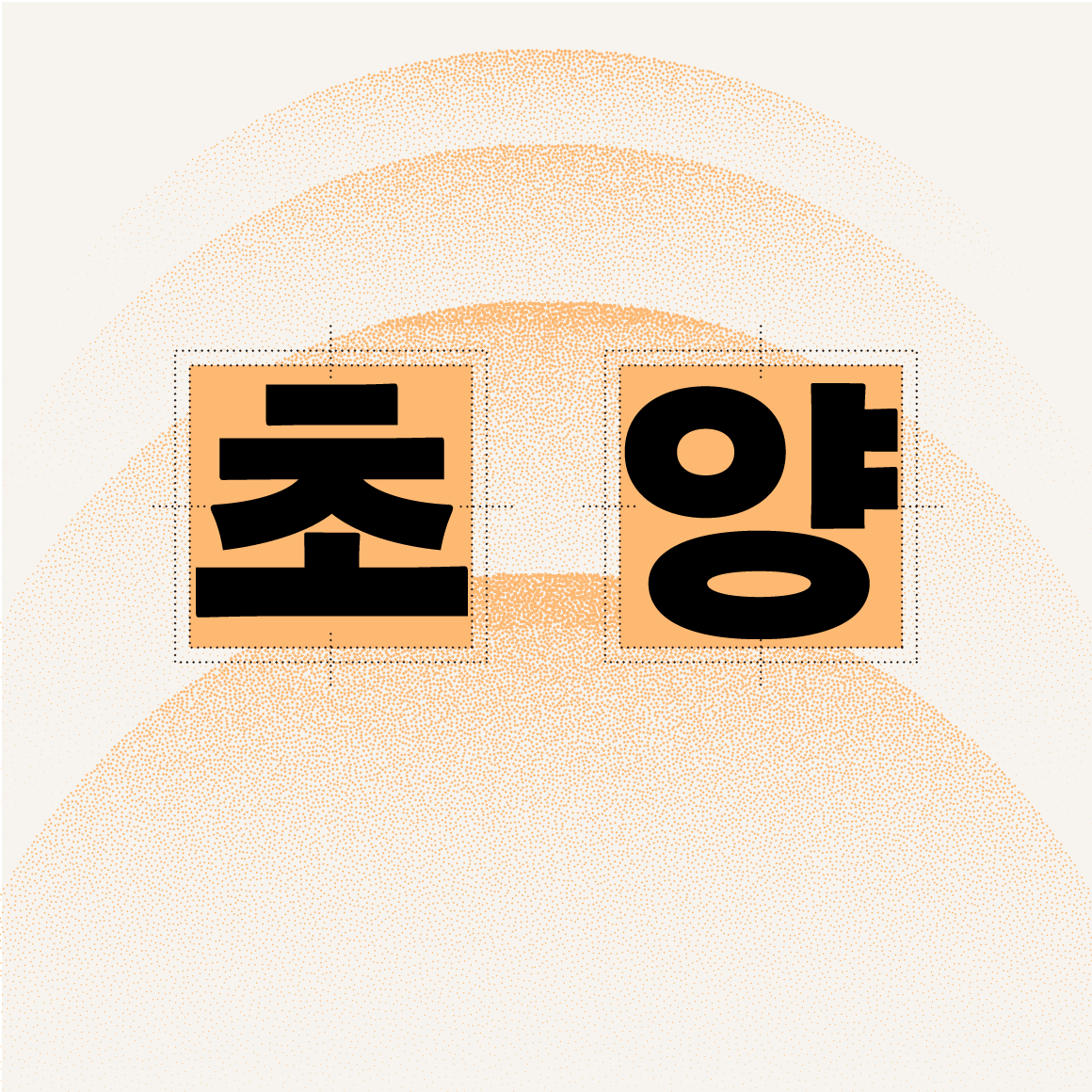
SD ChoYang2
SD Choyang 2 is an expanded version of SD Choyang, carrying forward its distinctive forms while extending its range of use. The family consists of six weights—Regular, Medium, SemiBold, Bold, ExtraBold, and Heavy—allowing its unique character to be expressed across a broader range of weights and densities.
Choyang is a contemporary reinterpretation of the Korean sans-serif type found in Joseonmal Keunsajeon (1929–1957), drawing on the sturdy yet warm character of the original letterforms and bringing their distinctive qualities into a contemporary context.